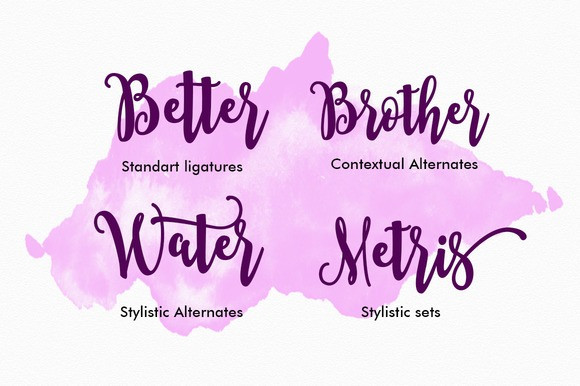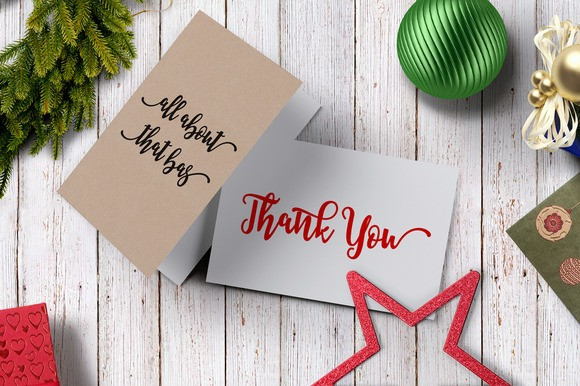
Freestyle Font
Freestyle Font is a handmade script font which has been beautifully drawn with a thin brush. A freestyle brush font created by expanding my brush lettering artwork which pressure-free about concepts but has a joyful lettering experience that applied into this font. This font visualizes flexible letterforms and natural strokes that give an energetic impression